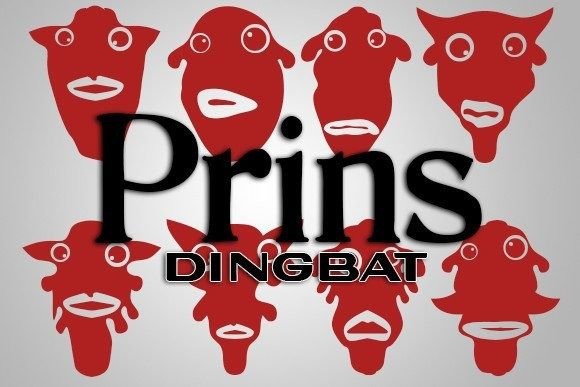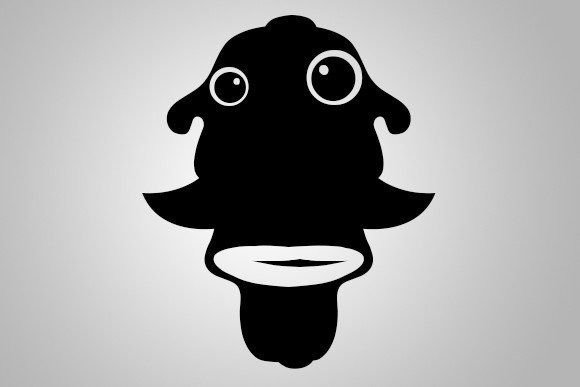
Prins Font
ABOUT PRINS FONT
“Prins” is an extraordinary dingbats font that features a captivating collection of abstract mask faces. With its unique and artistic design, this font brings a touch of intrigue and creativity to any design project.
The abstract mask faces in “Prins” offer a range of expressive and enigmatic designs, each with its own distinctive style and character. These masks can add a sense of mystery, playfulness, or even theatricality to your designs, making them perfect for a variety of applications.
Whether you’re creating designs for shirts, posters, flyers, or any other medium, “Prins” will undoubtedly make a bold statement. The abstract mask faces can serve as focal points, adding visual interest and capturing the attention of viewers. They offer a versatile and eye-catching element that can elevate your designs and make them truly memorable.
Unleash your creativity and explore the endless possibilities with “Prins” dingbats font. Experiment with different mask faces, sizes, and arrangements to create captivating compositions. Combine them with other design elements or use them as standalone accents to achieve the desired visual impact.
“Prins” is not only visually appealing but also versatile in its application. Its abstract mask faces can be used in various design genres, from fashion and music to theater and art. They provide an avenue for artistic expression and can help convey specific emotions or concepts in your designs.
So whether you’re looking to add a touch of abstract artistry, create a sense of intrigue, or simply make a statement, “Prins” is the perfect choice. Download this incredible dingbats font and let its abstract mask faces inspire your designs, allowing you to leave a lasting impression on your audience.